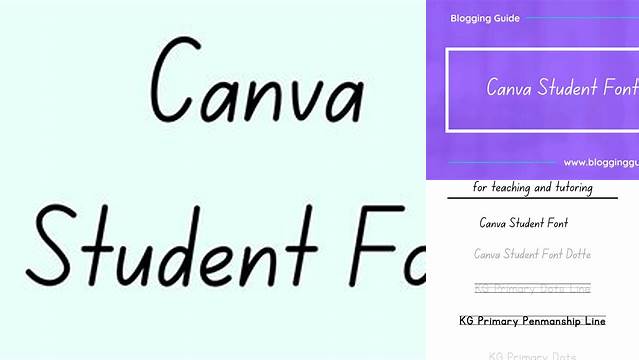
Canva Student Font Free Download: Your Ultimate Guide
Hey guys! Are you a student looking to jazz up your projects with some awesome fonts? You've come to the right place! Today, we're diving deep into the world of Canva student font free download, exploring how you can snag some fantastic fonts without spending a dime. Canva is a design platform that is super popular for students, and it is amazing for creating presentations, posters, social media graphics, and so much more. And the best part? It's user-friendly, even if you're not a design expert. Let's get started, shall we?
What are Canva Fonts and Why are They Awesome?
So, what exactly are Canva fonts, and why should you care? Well, Canva fonts are the typography options available within the Canva platform that you can use in your designs. They play a massive role in how your design looks and feels. Choosing the right font can make your project more readable, visually appealing, and effective in conveying your message. They help grab attention, set the tone, and enhance the overall aesthetic of your work. Imagine you're making a presentation. A clean, professional font can give a sense of credibility, while a playful font can inject some fun and creativity. It's all about finding the perfect match for your project! Canva offers a vast selection of fonts, and it is always a good idea to download the best free fonts. These fonts are designed to be versatile and user-friendly, catering to various design needs, from formal reports to social media posts.
Choosing the right font can be a real game-changer. It can influence how your audience perceives your work. A well-chosen font can make your content more readable and engaging, so it can grab attention and convey your message. Think of it like this: if you're writing a serious academic paper, you'll probably use a classic font like Times New Roman or Arial. But if you're making a fun poster for a school event, a more playful and creative font might be the way to go. The options within Canva are incredible, and you're sure to find something that suits your style. To find the best Canva student font free download you need to understand the categories and how to select them.
Okay, listen up, because this is super important. When it comes to Canva student font free download, you must understand font licensing and usage rights. Think of it like this: fonts are like little works of art, and they have rules about how you can use them. Most fonts available in Canva are licensed for commercial use, which means you can use them for anything, including school projects, personal projects, or even projects for clients. However, you should always double-check the specific license for each font. Canva typically provides information about the licensing terms when you select a font. You will want to be extra careful with fonts that are not included in Canva. If you download fonts from other websites, the usage rights can vary. Some fonts are free for personal use only, while others require a license for commercial use. So, always read the fine print!
When using Canva, always keep an eye on the font licenses. This way, you can avoid any copyright issues. It is your responsibility to ensure that you use fonts legally and follow all licensing terms. If you're unsure about a font's usage rights, it's best to err on the side of caution and use another font. Always make sure you understand how you can use the fonts. Be careful when using fonts that you download yourself because they may have different license terms. Understanding font licensing and usage rights is essential to using fonts legally and avoiding any copyright issues. By following these guidelines, you can use Canva student font free download responsibly and creatively. Doing this helps keep you in the clear and use Canva safely. And remember, if in doubt, always double-check the license or choose another font. Canva makes it easy to find the information you need. The platform provides details about the licensing terms for the fonts you select. This transparency helps you make informed decisions and avoid any potential legal issues. If you find that you're constantly needing specific fonts that are not available for free, consider a Canva Pro subscription. It can be a worthwhile investment for extra font access.
Tips for Choosing the Perfect Fonts for Your Projects
Alright, let's talk about how to pick the perfect fonts for your projects! You want your designs to look great, and choosing the right fonts can make all the difference. First, consider the purpose of your project. For example, if you're making a formal presentation, you'll probably want to use a clean, professional font like Arial or Times New Roman. If you're designing a fun poster for a school event, you might want to use a more playful font. It's about matching the tone of your project. Then, think about readability. The font should be easy to read, especially if you're using it for body text. Avoid overly fancy or decorative fonts for large blocks of text, as they can be hard on the eyes. You want people to easily understand what you're trying to say!
Next up, consider the style. Fonts come in different styles, such as serif, sans-serif, script, and decorative. Serif fonts have small strokes at the end of the letters, while sans-serif fonts do not. Script fonts mimic handwriting, and decorative fonts are more unique and stylized. Mixing and matching fonts can create a more dynamic and visually interesting design, but try to limit yourself to two or three fonts at most. Using too many fonts can make your design look cluttered. For example, you might use a bold, sans-serif font for your headings and a clean serif font for your body text. Think about the overall aesthetic you want to achieve. Do you want a modern, minimalist look? Or a more vintage, whimsical feel? Your font choices should reflect that. Don't be afraid to experiment! Play around with different fonts, sizes, and colors to see what works best. Canva is all about creative expression, so have fun with it. Canva offers lots of free fonts for students to download. There are a ton of free fonts for students to download and use, and the platform constantly adds more. Take advantage of these resources to find the perfect font for your project and make it stand out. The options within Canva are incredible, so have fun and be creative!
Best Practices for Using Canva Fonts Effectively
Alright, let's dive into some best practices for using Canva fonts effectively. This is your chance to take your designs to the next level. First, always pay attention to font pairing. Don't just randomly pick two fonts; think about how they complement each other. A good font pairing will create visual harmony and improve the overall look of your design. This means that the fonts should work well together without clashing. You can try a combination of a strong font for headings and a more readable one for the body. You can use Google fonts to find inspiration. You should keep your design consistent. This means sticking to a consistent set of fonts throughout your project. Consistency helps create a cohesive and professional look, so always create consistent font choices. Too many font changes can make the design seem messy and unprofessional, so keep it simple. Avoid using too many fonts in one design. Stick to a maximum of two or three different fonts to maintain a clean and organized look. More than that can make your design look cluttered. You want to think about the hierarchy of your fonts. The font size and style should be used to create a visual hierarchy, so the most important information stands out. Use larger font sizes and bolder styles for headings and titles, and use smaller sizes for body text. Finally, make use of negative space. This is the blank space around your text and other design elements. Negative space can make your design more balanced and easy to read. Using the right font can make a huge difference in how people perceive your work. It is easy to use Canva student font free download.
Canva Font Alternatives and Where to Find Them
Okay, so what if you are looking for some extra font options beyond the Canva student font free download library? No worries, there are a ton of alternatives out there. One of the best places to find free fonts is Google Fonts. Google Fonts offers a massive library of fonts that you can download and use for free. They are all web-safe, which means they will look great on any device. You can use the fonts for personal and commercial projects. Another excellent source for free fonts is DaFont. DaFont has an extensive collection of fonts, including different styles and categories. It is essential to check the licensing terms before downloading and using any font from DaFont. Be aware that some fonts may only be available for personal use. Another option is Font Squirrel, a website that curates high-quality, free fonts. Font Squirrel is a great option if you want to find fonts that are well-designed and suitable for professional projects. Font Squirrel also offers font pairing tools that can help you find fonts that work well together. It is a great idea to understand your needs. So, the best strategy is to explore a variety of sources. The best font is the one that best suits your project and goals. Always be sure to check the usage rights. Check the licensing terms for each font you download to avoid any copyright issues. By exploring these alternative sources, you can expand your font collection and create even more amazing designs.
Conclusion: Unleash Your Creativity with Free Canva Fonts
So, there you have it, guys! Everything you need to know about the Canva student font free download. You have learned all about how to find and use amazing fonts. Now, it is time to unleash your creativity and make some incredible designs! Canva provides a fantastic platform for students to experiment with typography and express themselves. By following the steps and tips outlined in this guide, you can elevate your projects. So, get out there, experiment with different fonts, and create designs that make you proud. Happy designing!